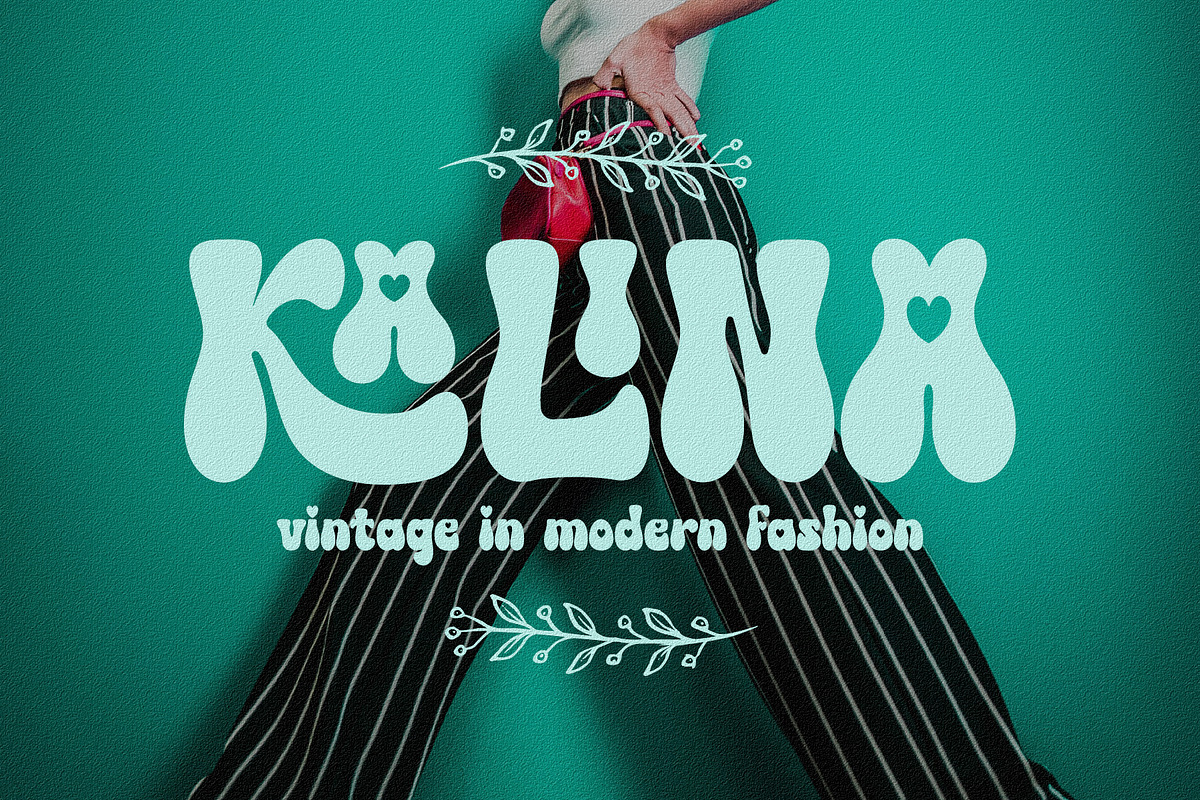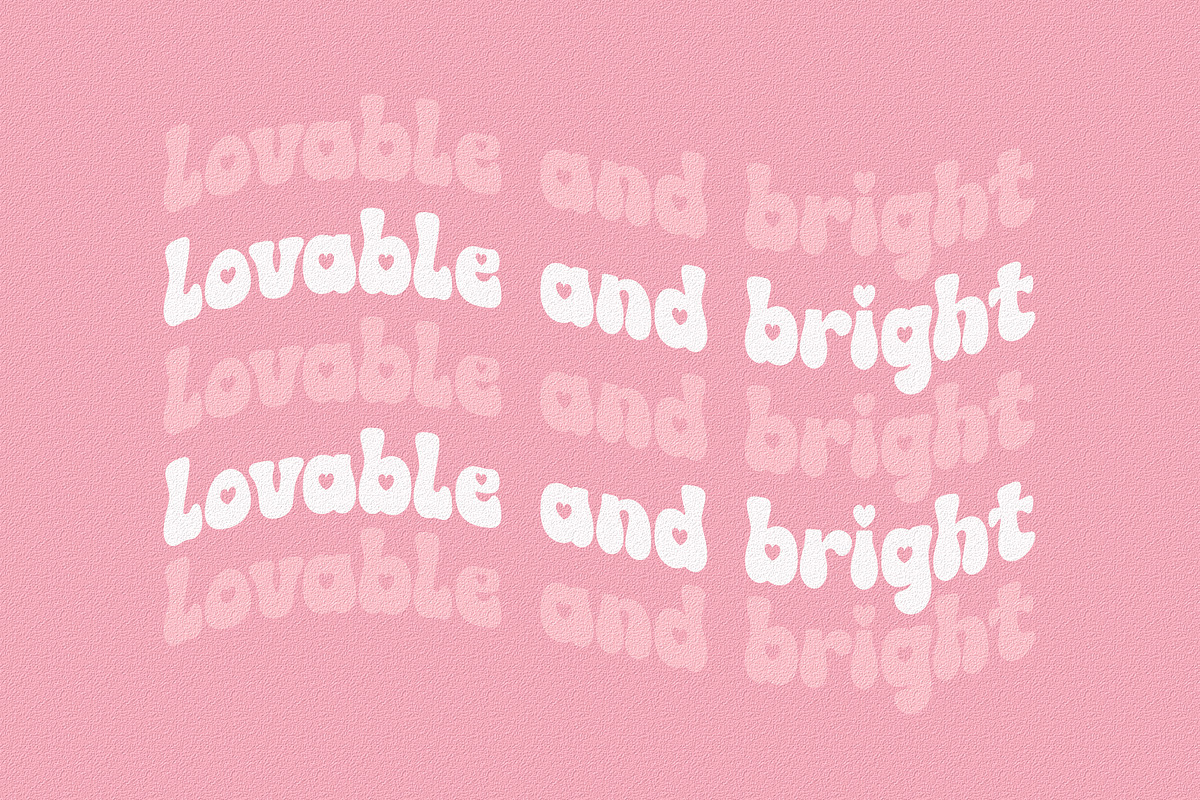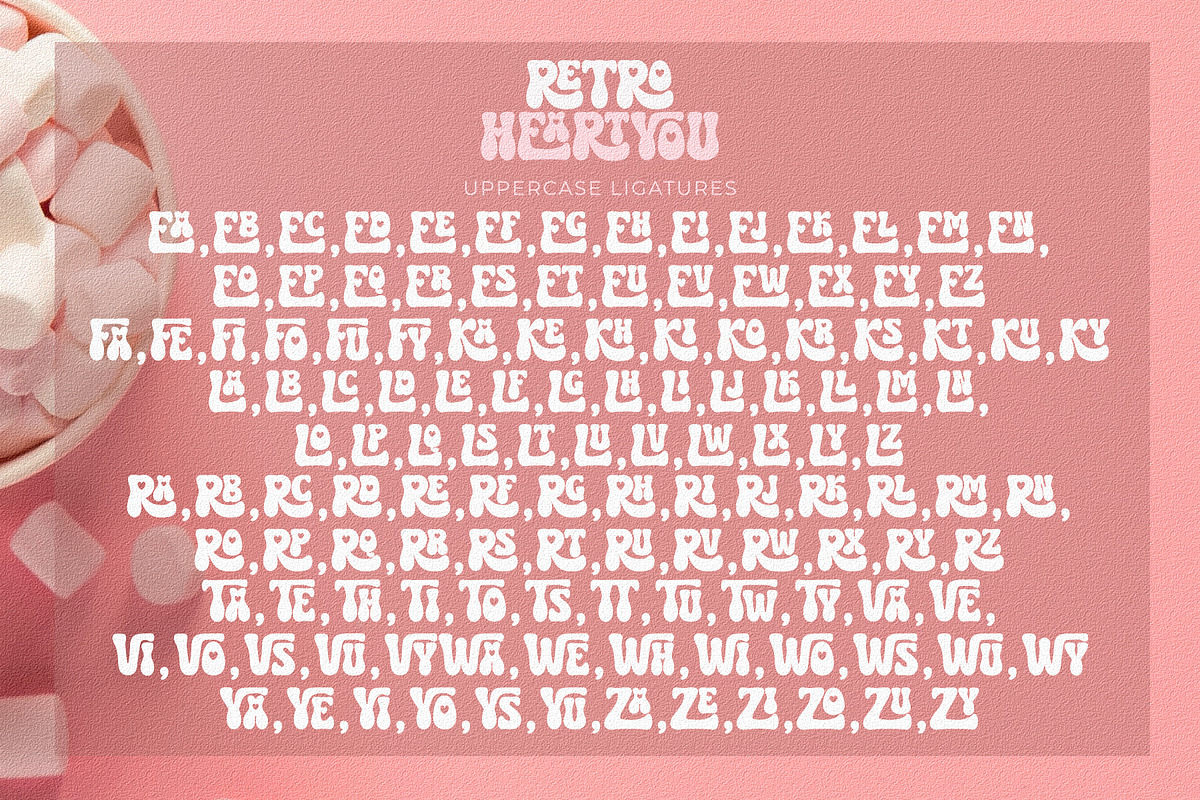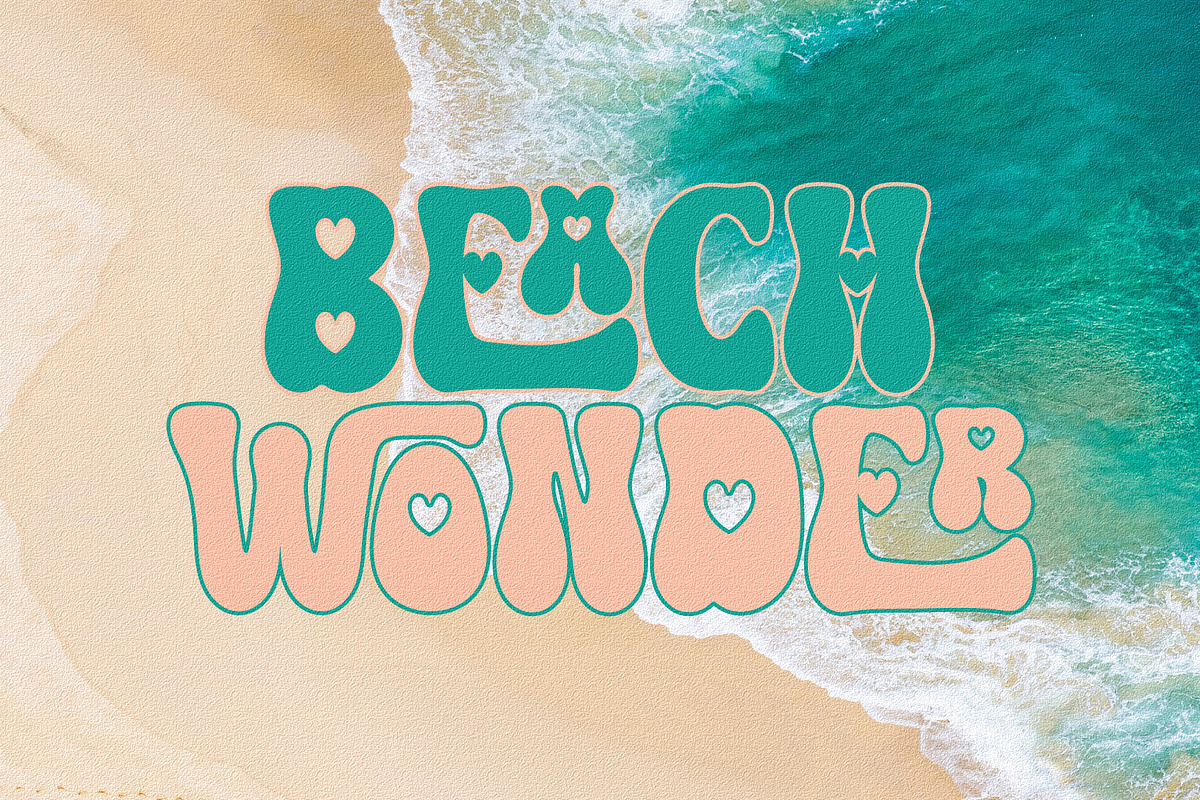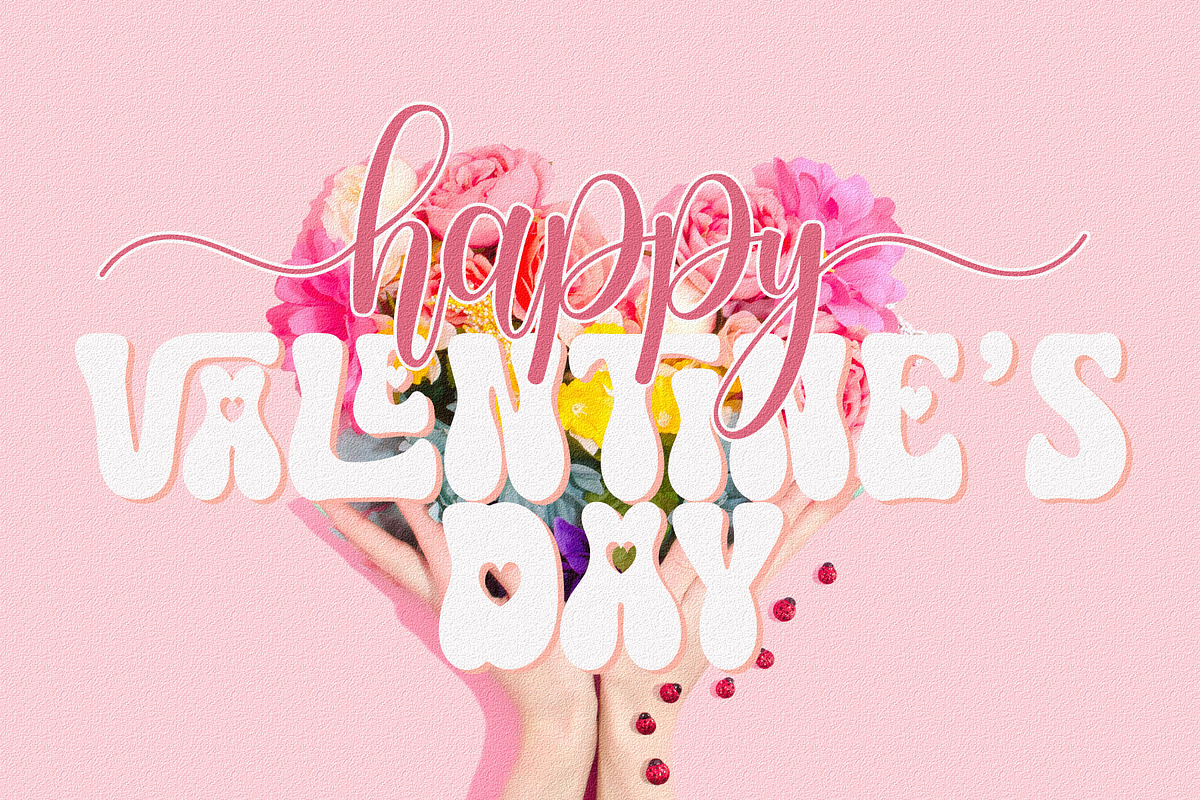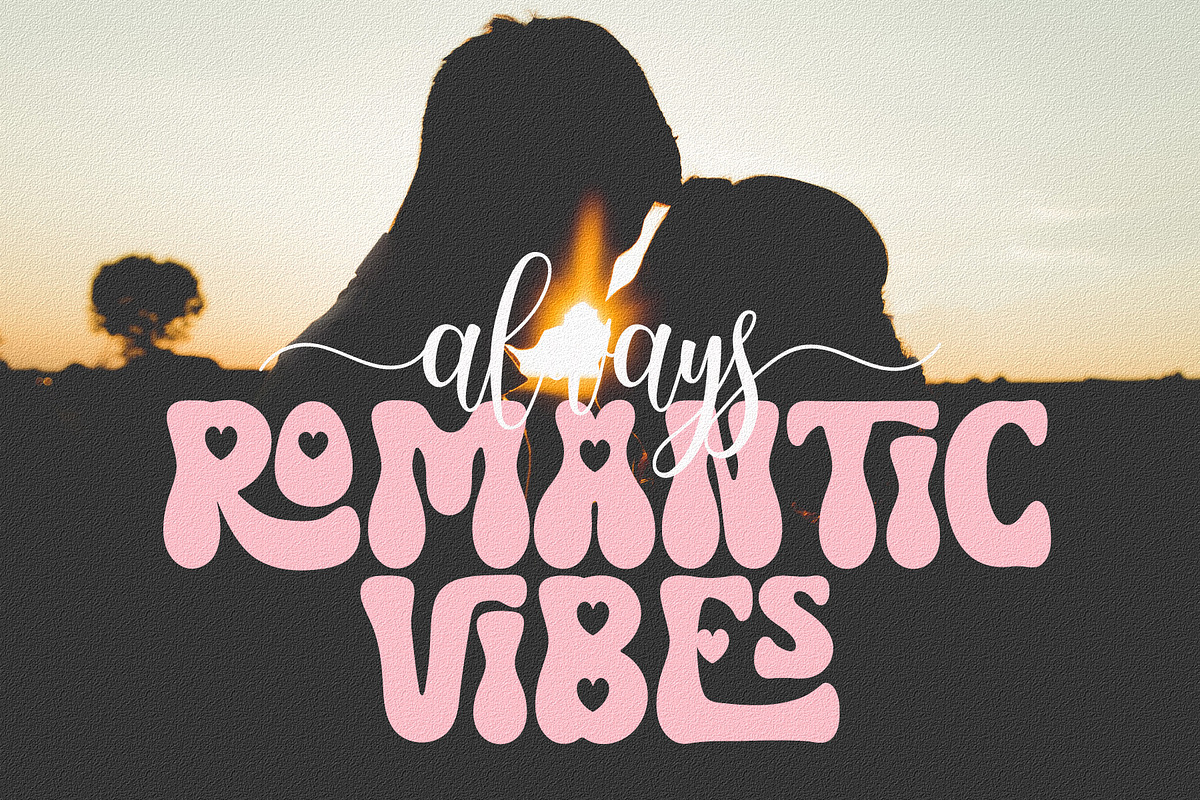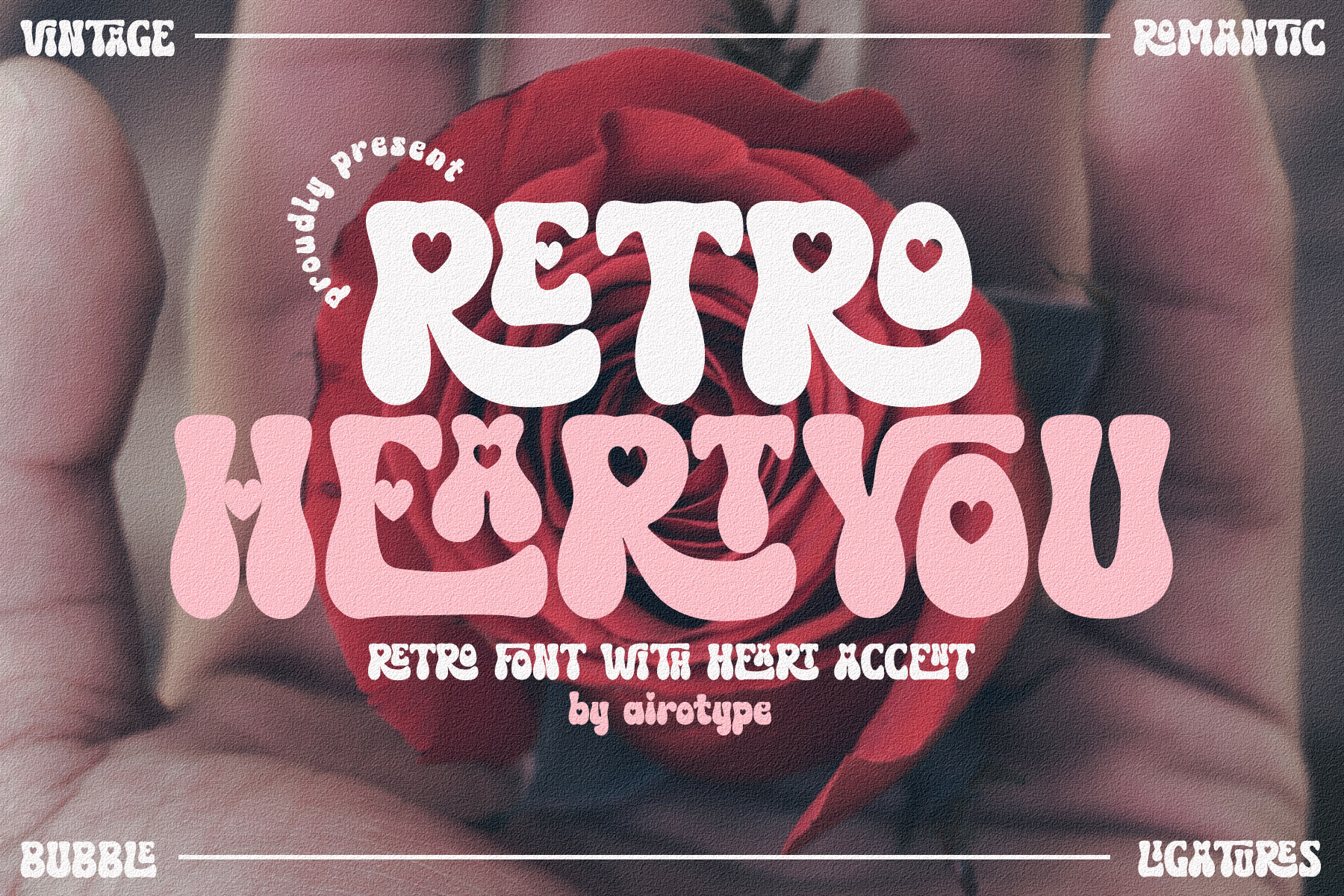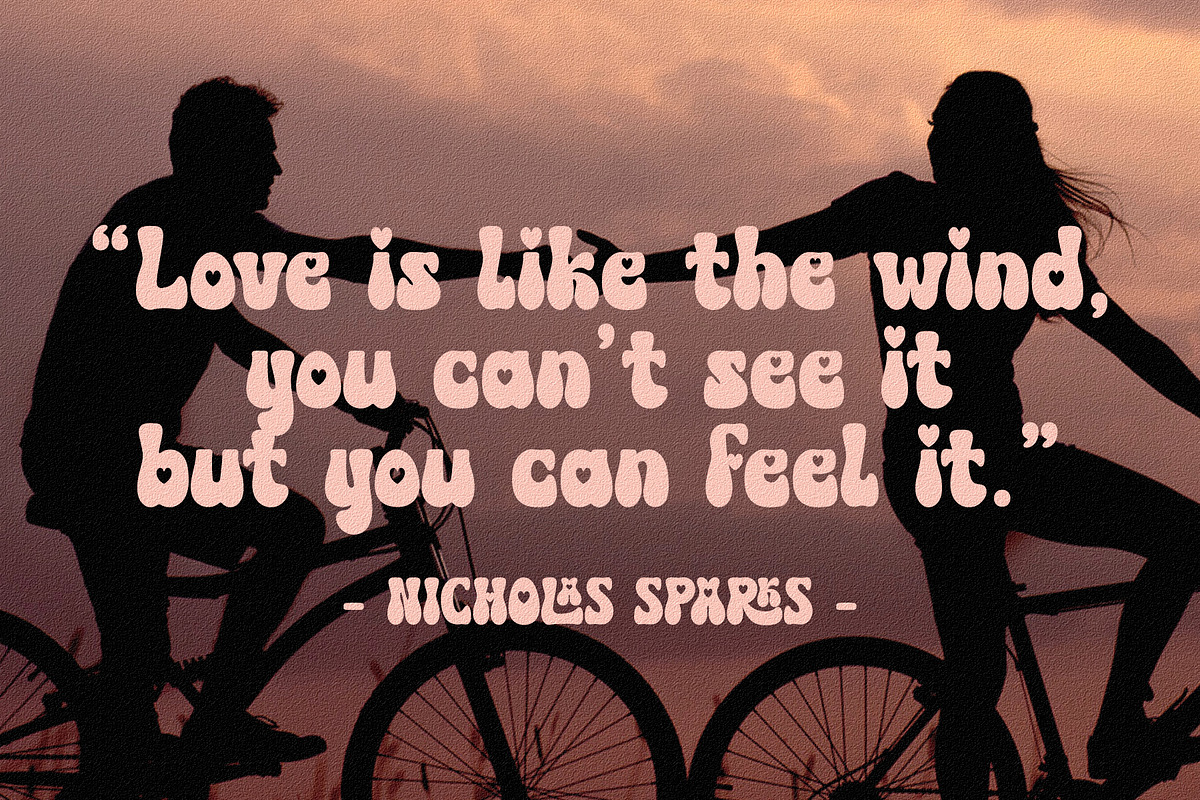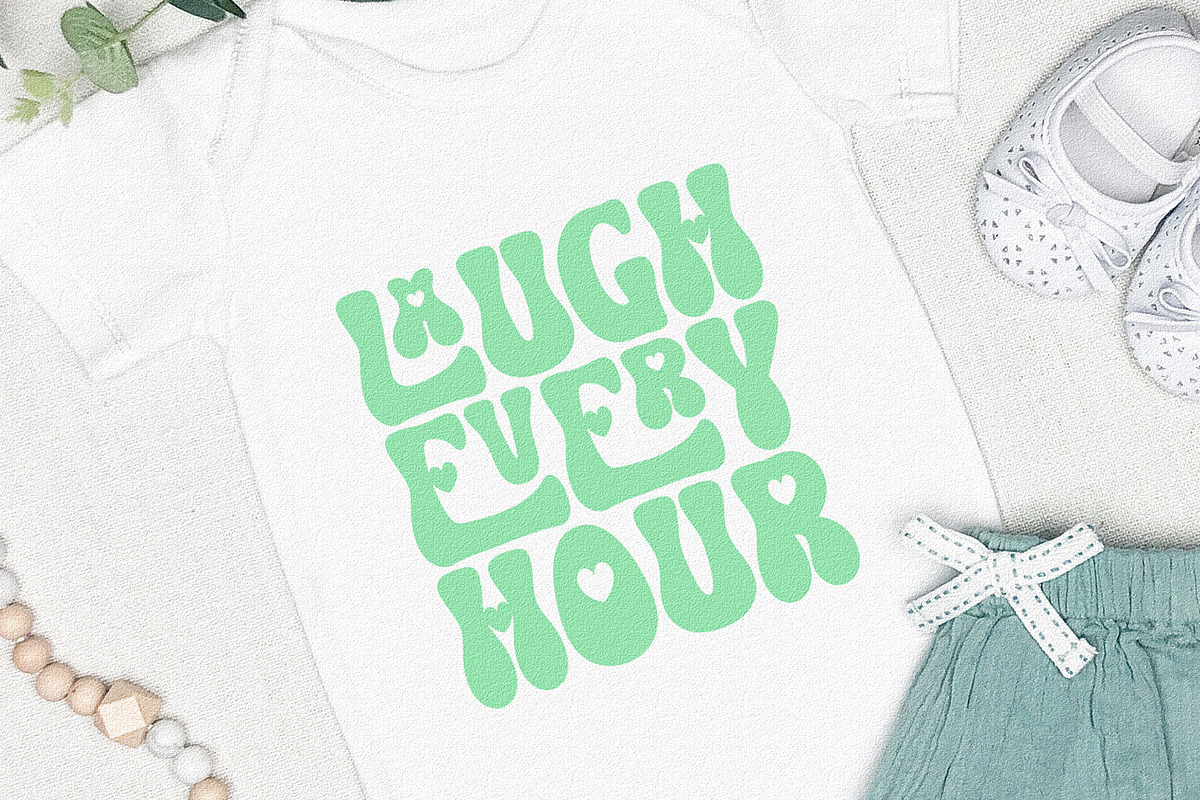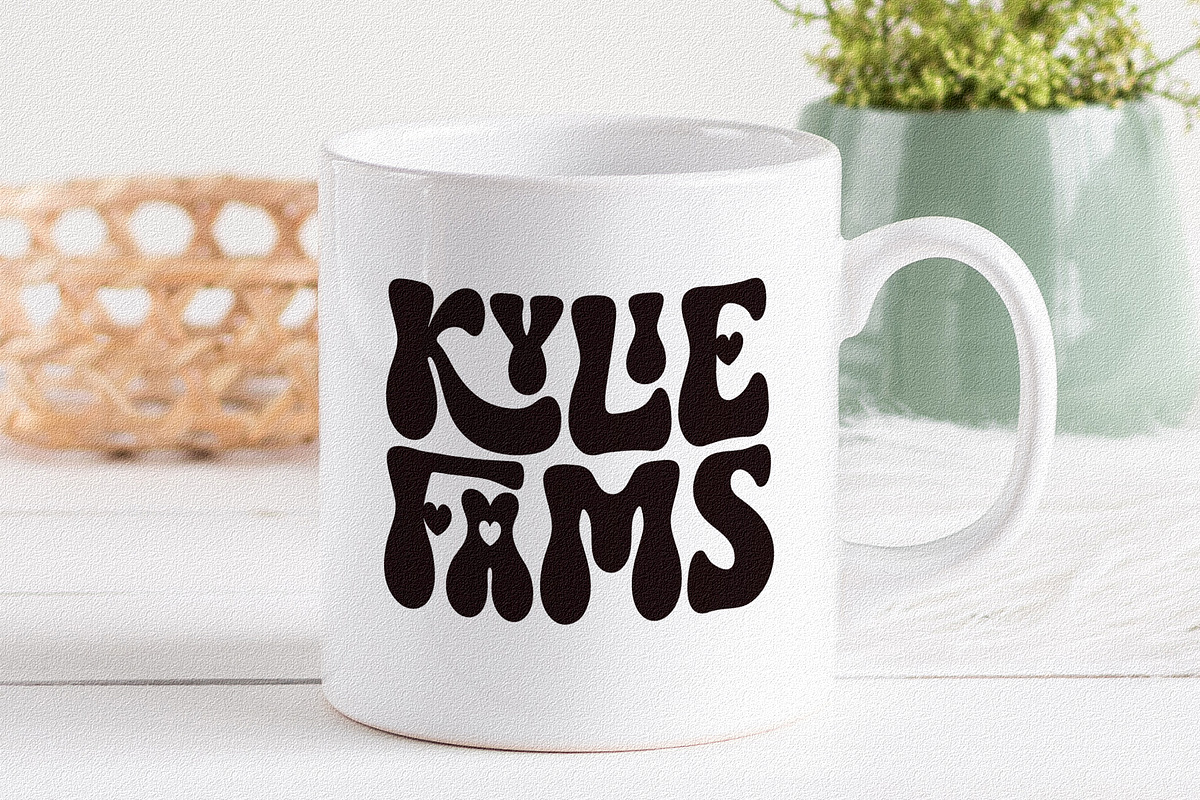
Retro Heart You - Love Heart Font
Retro Heart You is vintage font with heart accent. This is cute, fun, and having retro touch.
Retro Heart You has ligatures in uppercase. Lots of ligatures will give fancy looks in designing. Make sure you know how to activate ligatures in software you are using.
Retro Heart is suitable font for design that needs lovely and retro vibes, such as Valentines Day, t-shirt, stickers, wedding, and many others.
- Uppercase (with ligatures) and lowercase
- Most Multilingual Accent